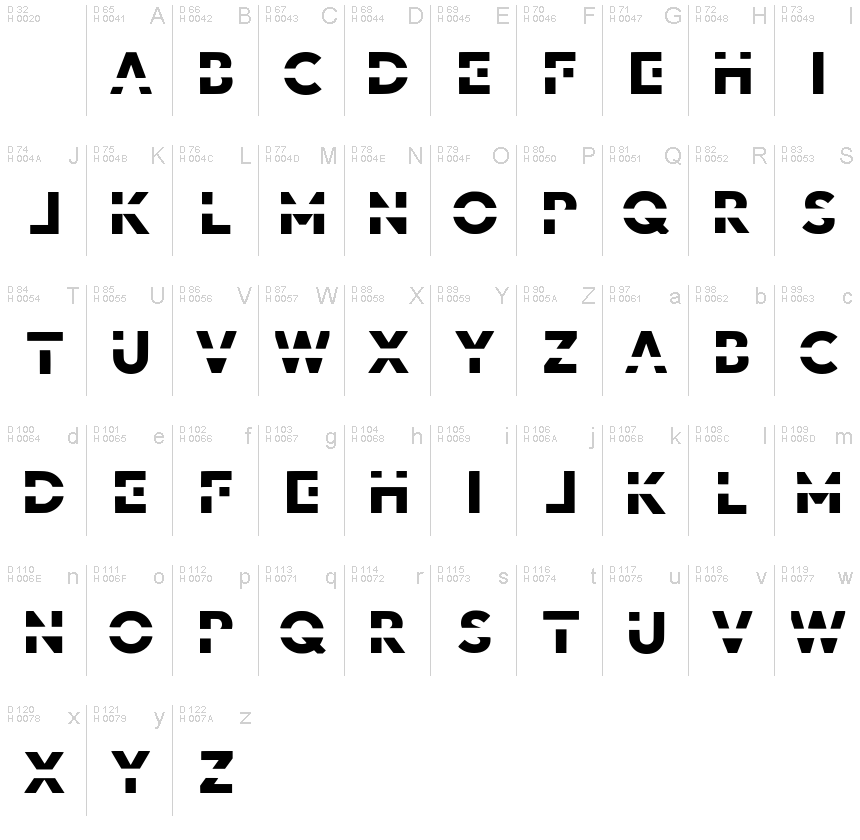
Seo Freelancer Agent Regular
Seo Freelancer Agent is a bold, display font that commands attention. With its striking letterforms and unapologetic presence, this font exudes a sense of confidence and professionalism. The sharp, angular edges and robust strokes give the typeface a distinctly modern aesthetic, while the slightly condensed design adds a touch of elegance. Seo Freelancer Agent's powerful personality makes it an ideal choice for branding, headlines, and eye-catching designs that need to make a lasting impression.
This versatile font can elevate a variety of projects, from corporate identities to editorial layouts and marketing materials. Its bold stance lends itself well to the creation of impactful logos, while the legibility of the letterforms ensures readability in both digital and print applications. Seo Freelancer Agent is a font that thrives in the spotlight, delivering a strong visual presence that is sure to captivate and inspire.